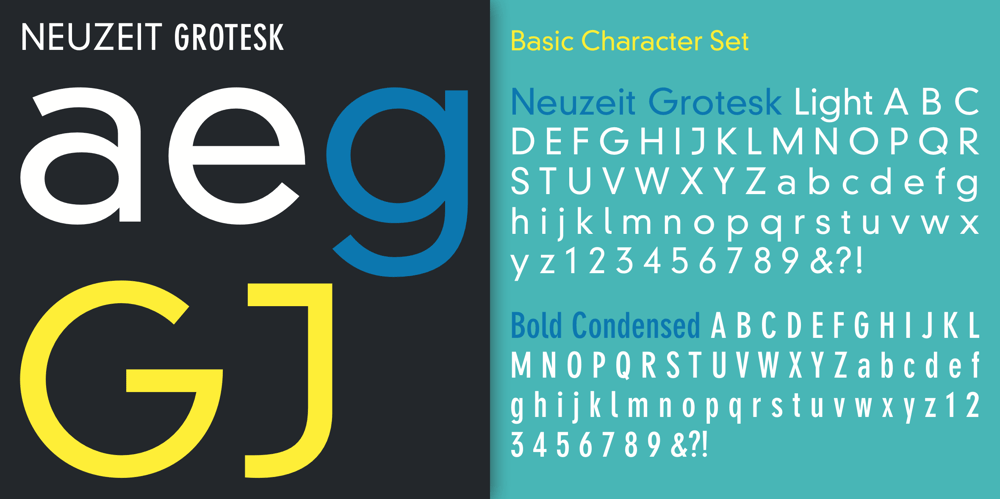
DIN Neuzeit Grotesk
DIN Neuzeit Grotesk font
DIN Neuzeit Grotesk Font Family was designed by Wilhelm Pischner and published by Linotype. DIN Neuzeit Grotesk contains 3 styles and family package options. The German Standards Committee suggested the light Neuzeit-Grotesk’ font in 1970 for use in official signage, traffic directional systems, etc. The typeface had been designed by Wilhelm Pischner and appeared with the font foundry D. Stempel in 1928. The font Neuzeit Grotesk was once the standard in the print industry, as a timeless typeface with no real distinguishing features. Like other typefaces of the 1920s, DIN Neuzeit Grotesk reflects the philosophy of the times, Form is Function.’